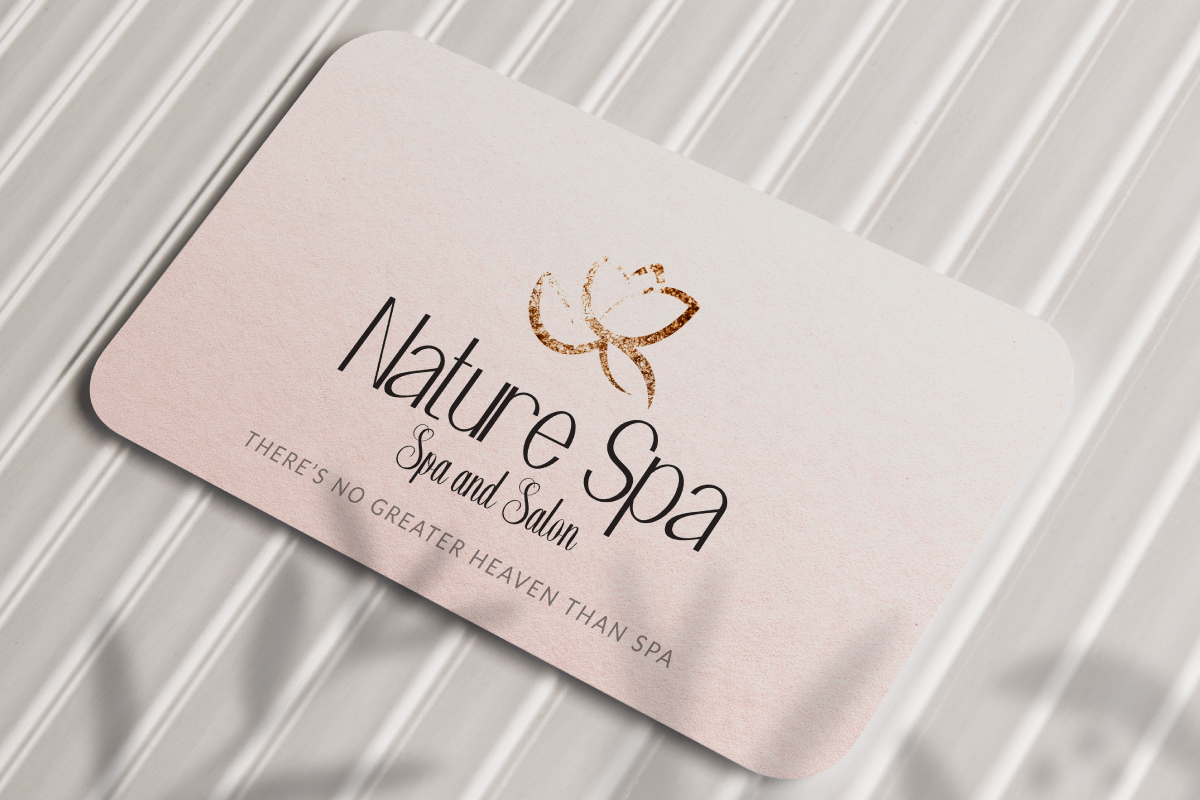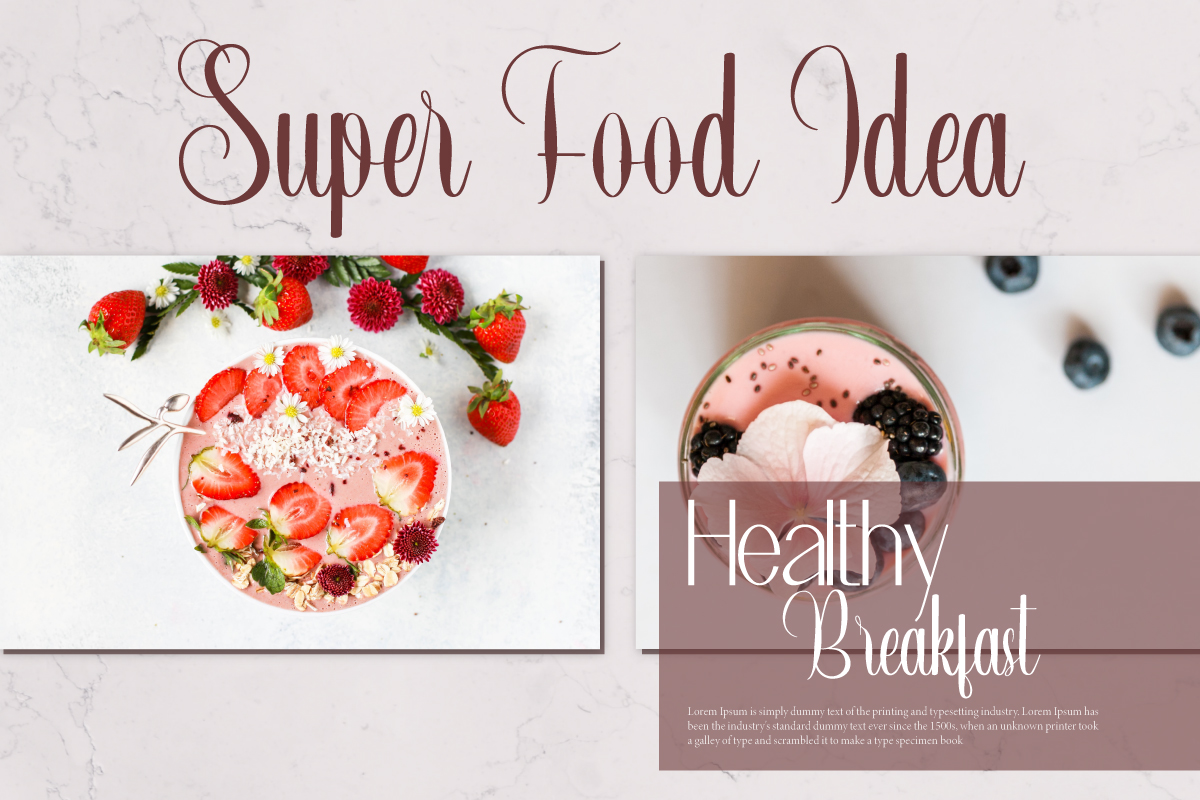
Beautiful Good Font
Beautiful Good Font Duo
This is a two perfect combination fonts designed by NoahType. The font has two different styles, calligraphy and modern sans display to bring out the perfect style, elegant, feminine and easy to read. These two will be amazing for many projects : billboard, blog headers, brochure, business card, company sign, creating logo, headline, invitation, magazine design, product packaging, quotes, tote bag custom and more.
Beautiful Good Font includes full set of Uppercase and Lowercase Basic Characters, Numerals and Punctuation. Also it contains ligatures and swoosh it will be stunning for any business such as, beauty product, cooking class, craft, events, fashion, jewelry, perfume, spa and salon, wedding, and many more.